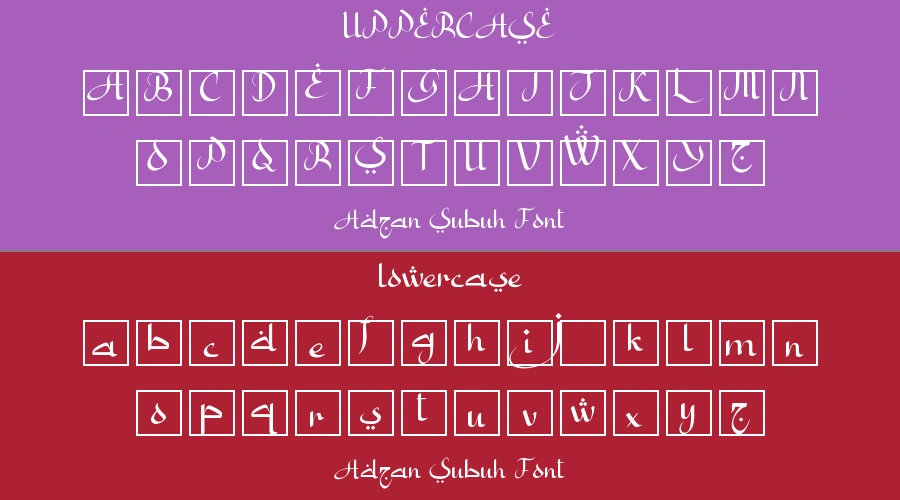
About Adzan Subuh Font
Adzan Subuh Font represents a sophisticated approach to type design, balancing brush influence with technical precision. Perfect for advertising headers, this font family showcases impressive originality and refinement throughout its character set. Designers appreciate its versatility and reliability.
Designers will appreciate nuanced touches including swash extensions and mathematical symbols, adding sophistication to any project. These features become apparent in specification sheets, where consumer preference matters most. The careful treatment of loop structure and technical innovation ensures optimal performance.